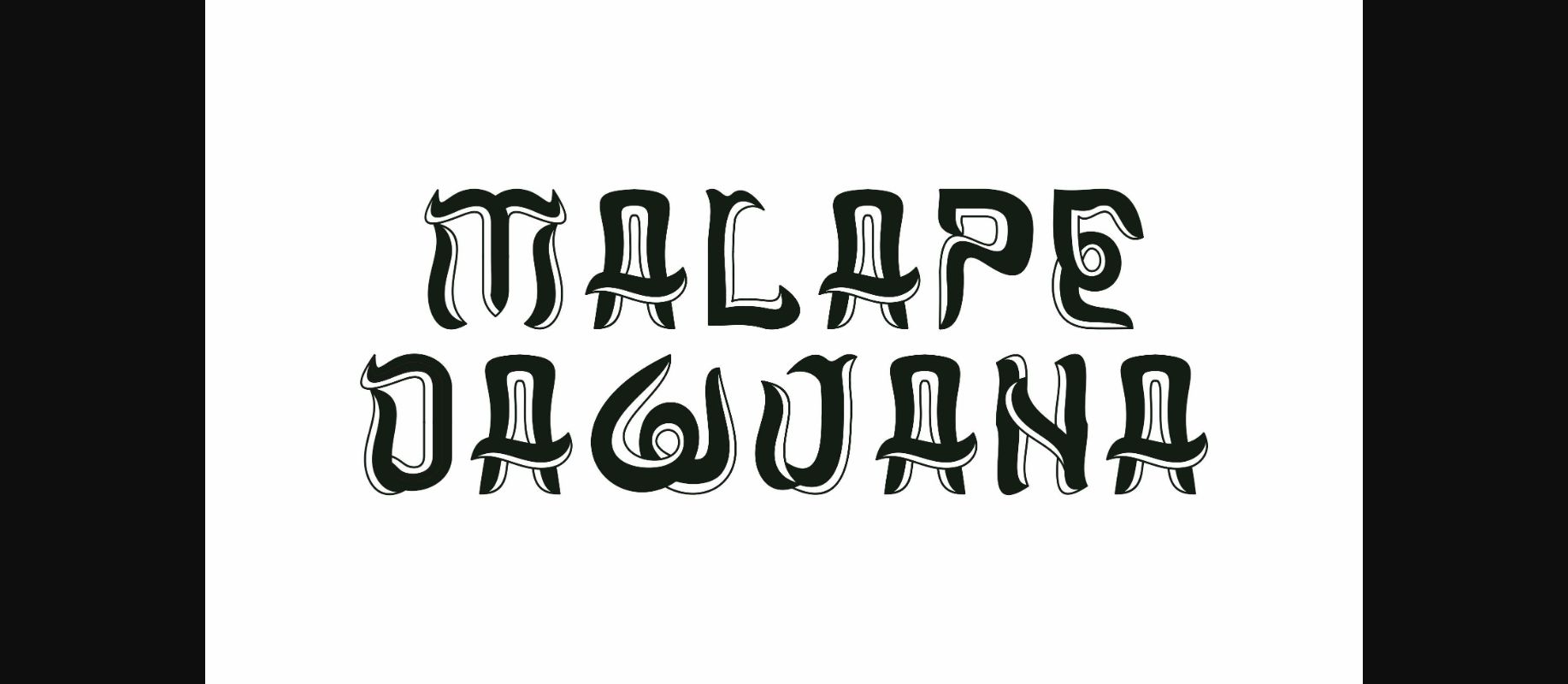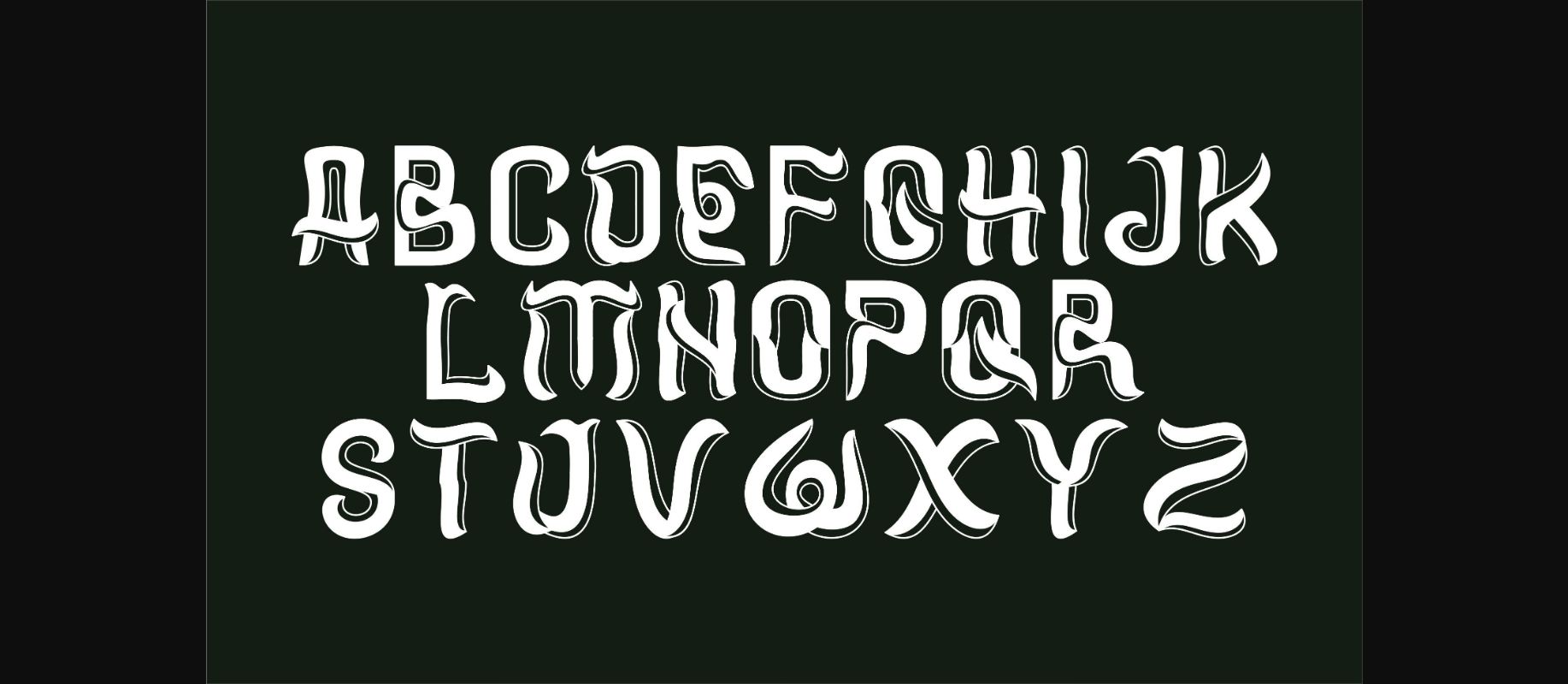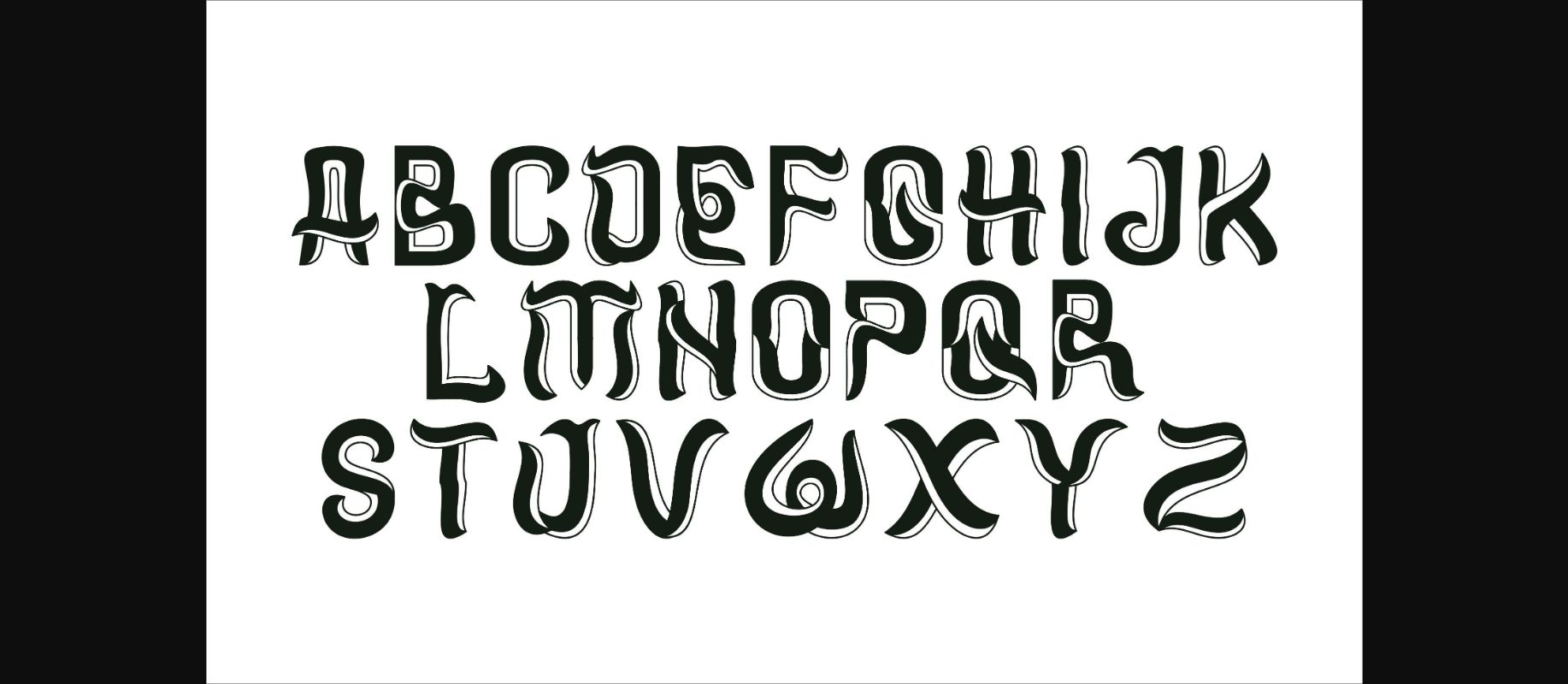
Malape Dawuana Font
About Malape Dawuana Font
Malape Dawuana is a unique and creative all-caps display font. No matter the topic, this font will be an incredible asset to your fonts’ library, as it has the potential to elevate any creation.